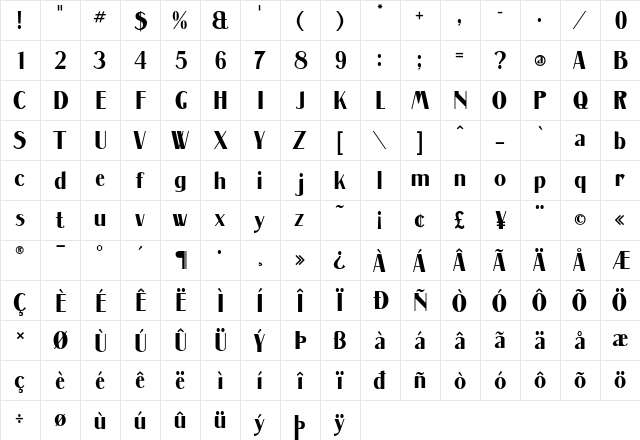
Massenet Bold Bold
| Foundry | Chuck's Fonts |
| Designer | Chuck Mountain |
Design Context for Massenet Bold Typeface
Massenet Bold offers clean, dependable letterforms without strong stylistic allegiance, making it a practical choice for designers who need flexibility. Its bold stroke weight gives it real presence on the page.